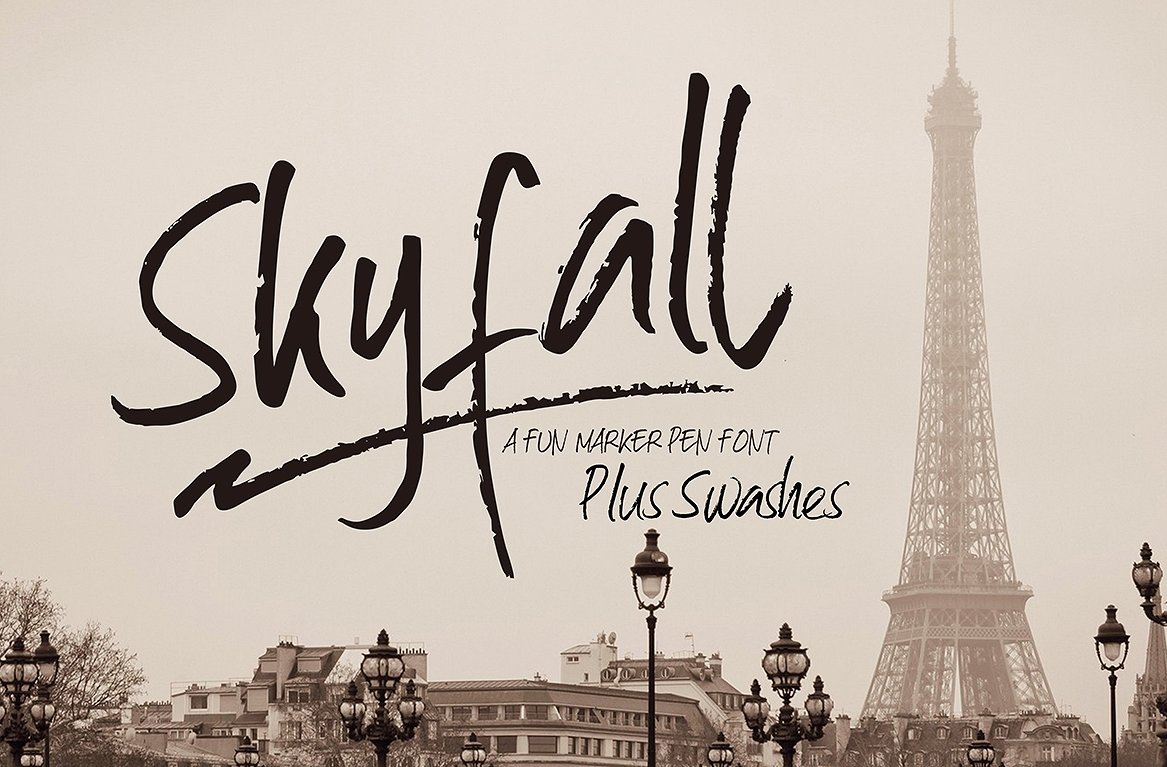
Skyfall Brush
Skyfall Brush Font
Introducing the skyfall font is a fun marker pen font, quirky, freestyle and versatile. You don’t just get a font , Skyfall font Includes hand-made swashes to help you along your way, and to boost your creativity. Comes with upper-case and lowercase characters, basic punctuation, numerals, and supports international languages.